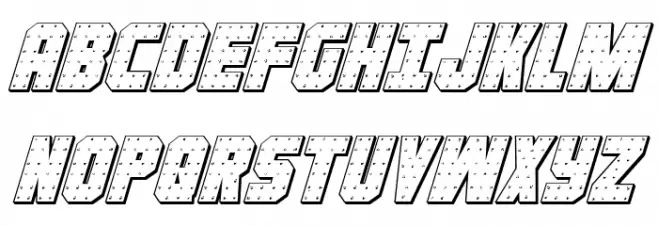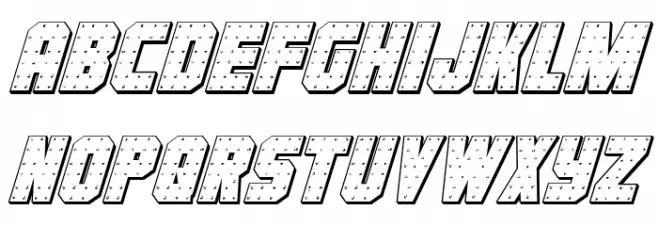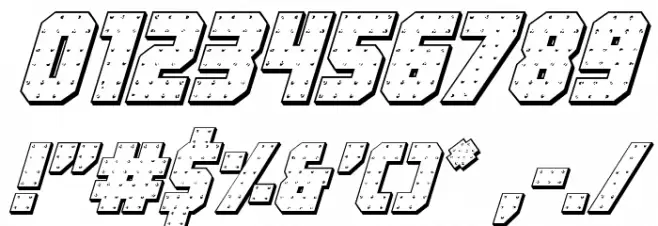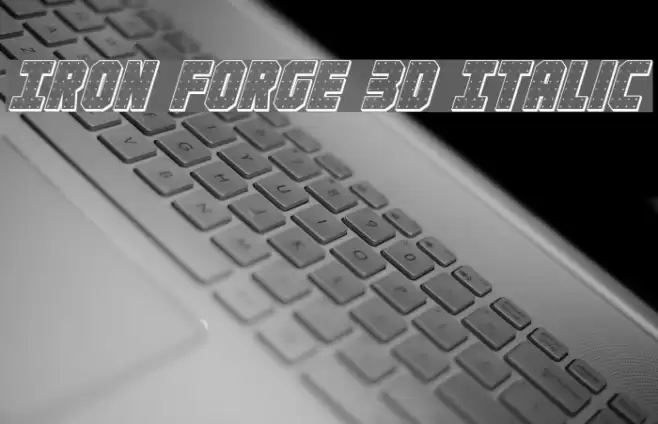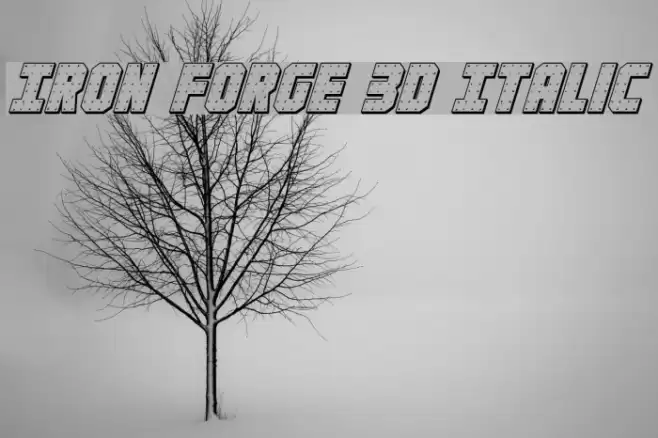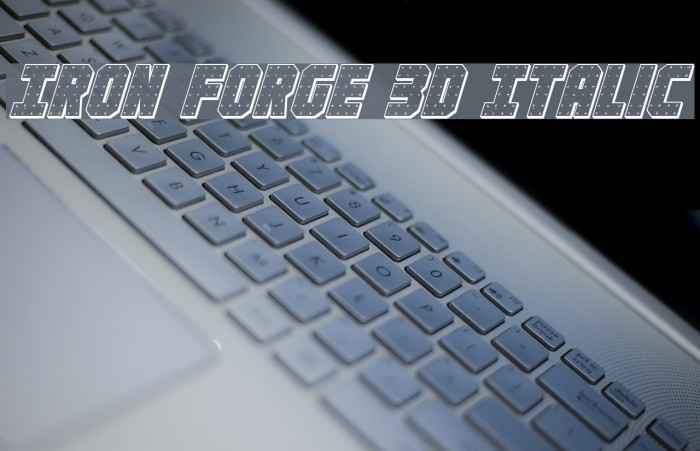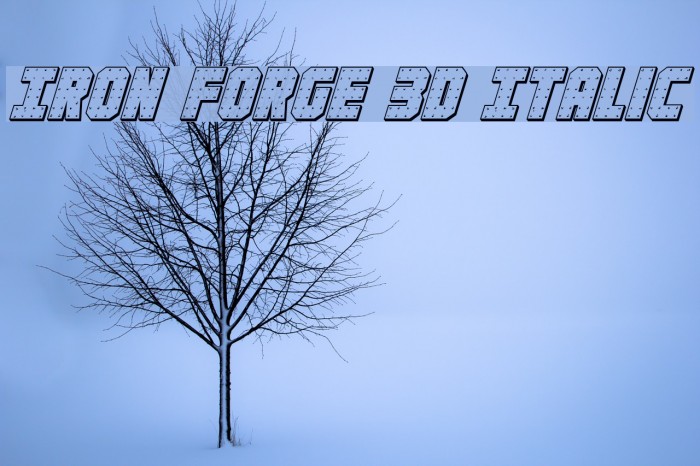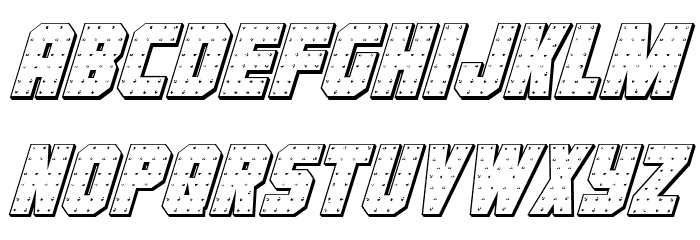
Iron Forge 3D Italic
This font features a bold, three-dimensional design with an italic slant, giving it a dynamic and robust appearance. The characters are outlined with a thick black border, enhancing their visibility and impact. The interior of each letter is filled with a dotted pattern, adding texture and a unique visual interest. The overall style is reminiscent of industrial or mechanical themes, making it suitable for projects that require a strong, eye-catching typeface. The uppercase and lowercase letters maintain consistent styling, ensuring uniformity across different text applications. Numbers and special characters are also included, designed with the same bold and textured characteristics.
A bold, 3D italic font with a dotted texture and industrial style.
- Proposed Projects: Ideal for posters, logos, video game graphics, and industrial-themed designs.
- Overall Style: Modern, Industrial
- Use Case: Headlines, Logos, Posters